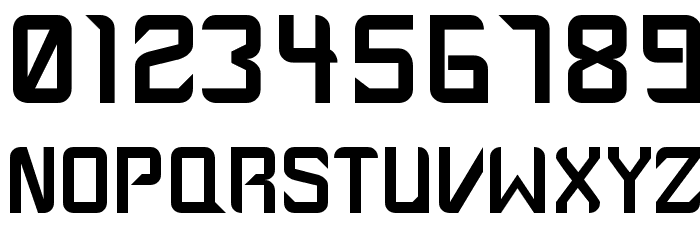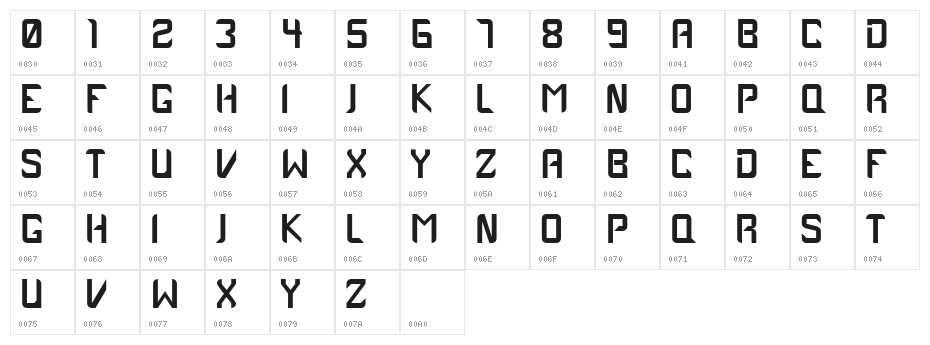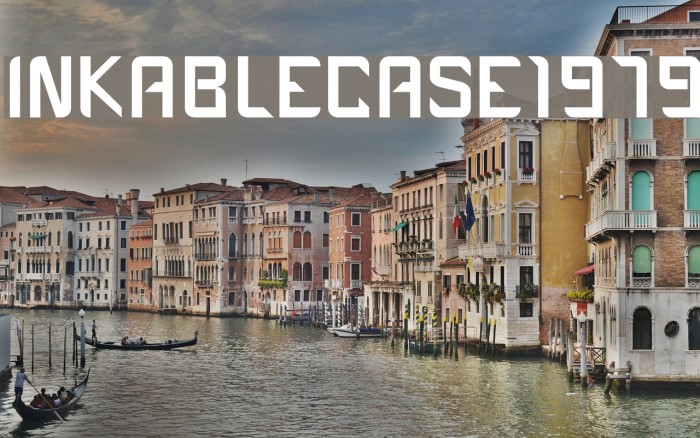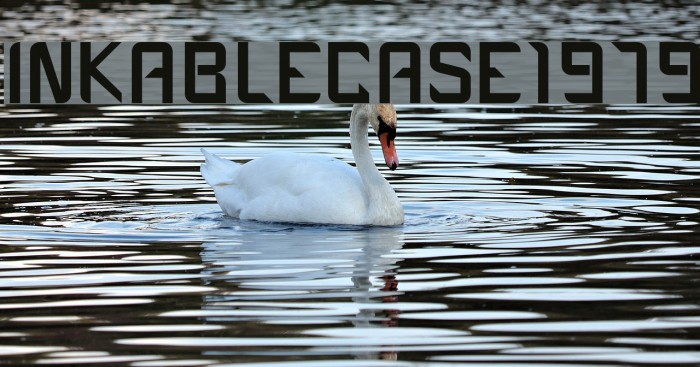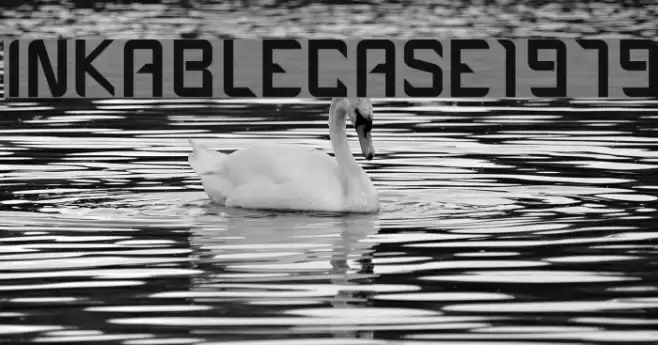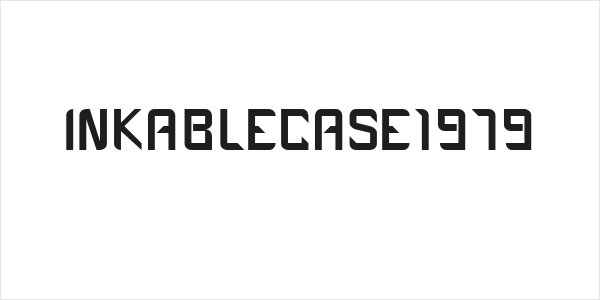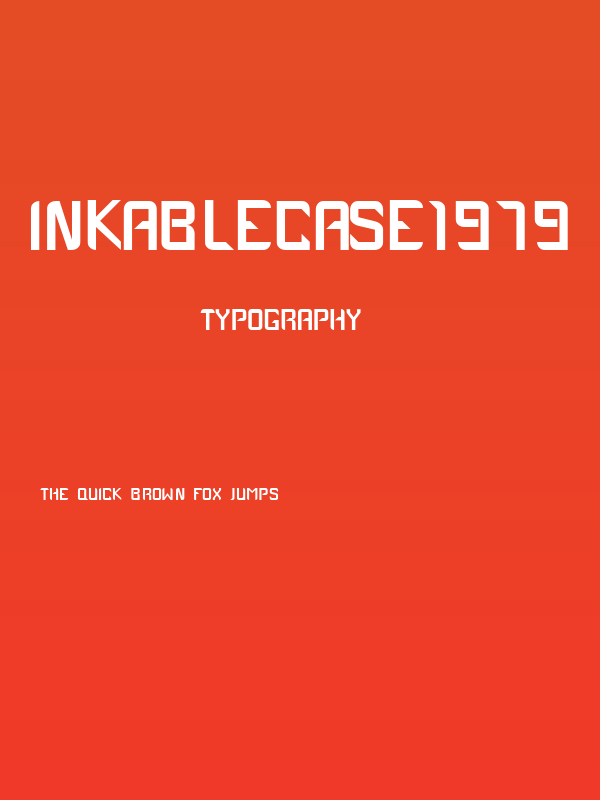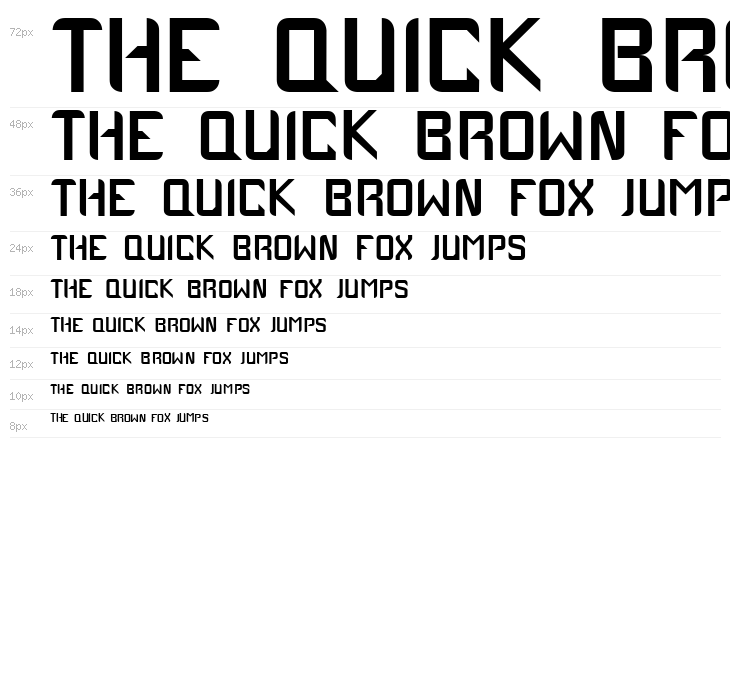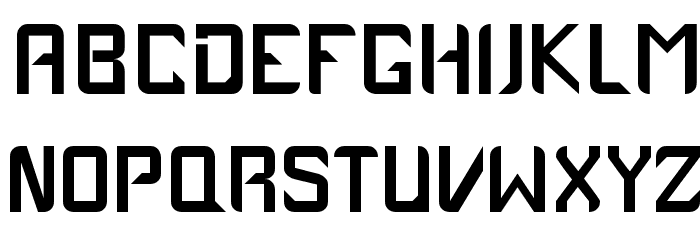
InkableCase1979 Font
InkableCase1979 Description
This font features a bold and geometric design with a futuristic flair. The characters are constructed with sharp angles and clean lines, creating a sense of precision and modernity. The uppercase and lowercase letters share a consistent style, maintaining uniformity across the alphabet. Numbers and special characters are designed to match the angular aesthetic, ensuring a cohesive look. The font's strong presence makes it suitable for impactful designs where clarity and boldness are essential.
| Proposed Projects | Ideal for technology branding, sci-fi posters, video game titles, and modern advertising. |